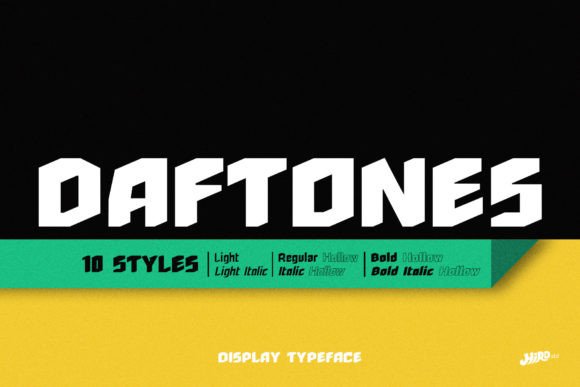
Welcome, font enthusiasts, to the realm of Daftones, a display typeface that resonates with the avant-garde spirit of Kraftwerk and the sleek Bauhaus aesthetic. Daftones is not just a collection of letters; it's a symphony of minimalist elegance, a celebration of modern design that breathes life into your digital creations.
With Daftones, you're not merely downloading a font; you're embarking on a typographic odyssey where every letterform is a work of art. Its clean lines and geometric precision evoke a sense of order and sophistication, while its subtle curves and unexpected angles hint at a playful, experimental nature.
Whether you're crafting sleek website headlines, designing eye-catching posters, or creating social media graphics that demand attention, Daftones rises to the occasion, embodying the spirit of innovation and creativity that defines our digital age. Its versatility extends from branding and advertising to editorial design and beyond, making it the perfect choice for those who embrace the power of typography to make a bold statement.
Daftones is a font that doesn't shy away from individuality. Its bold presence commands attention, while its understated elegance ensures that your message shines through. Let Daftones be the voice of your brand, speaking volumes with its understated confidence and timeless appeal.
As you explore the depths of Daftones, you'll discover a world of typographic possibilities. Its carefully crafted characters dance harmoniously on the page, creating a visual symphony that captivates and inspires. Each letterform is a testament to the passion and precision of its creator, HIRO.std, a renowned font foundry known for pushing the boundaries of digital type.